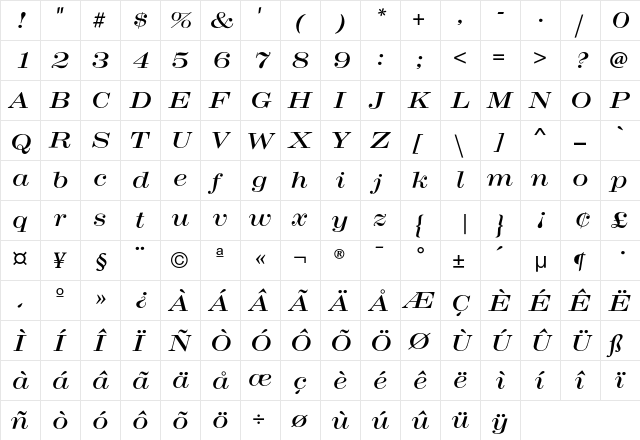
CrawModern-Itl Regular
Design Context for CrawModern-Itl Typeface
CrawModern-Itl is a composed and adaptable typeface that performs quietly and consistently across a wide range of design contexts.